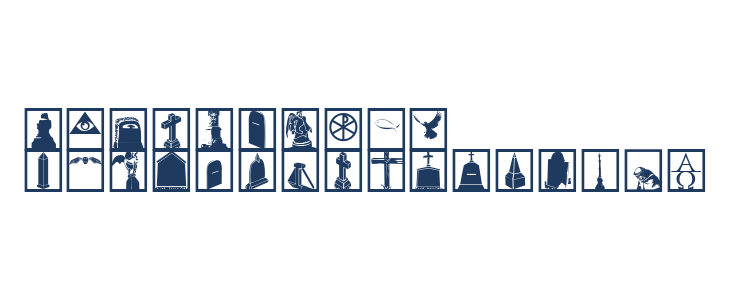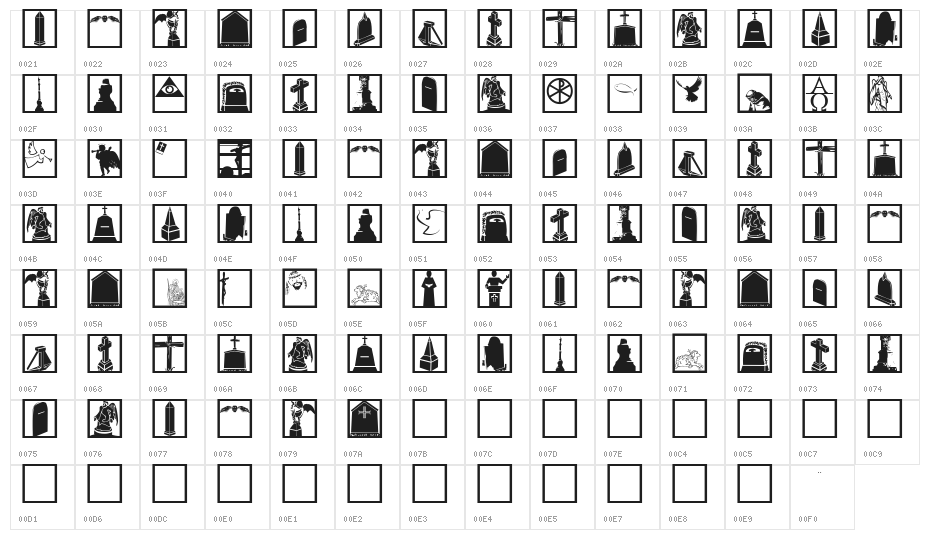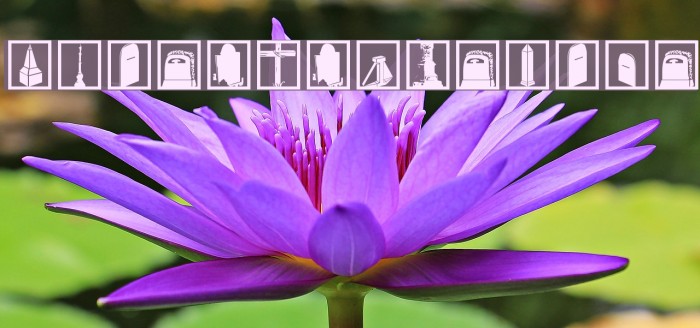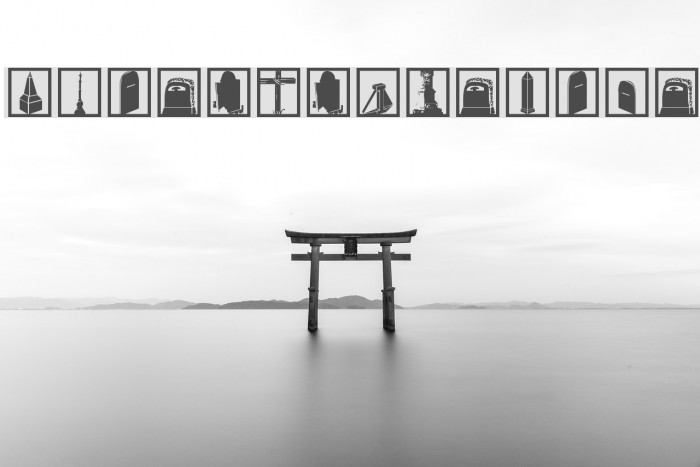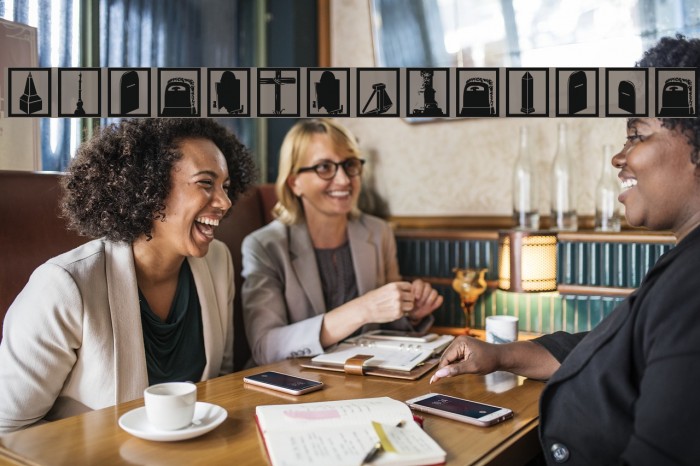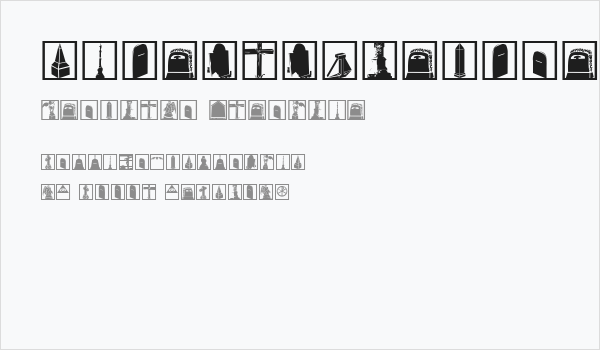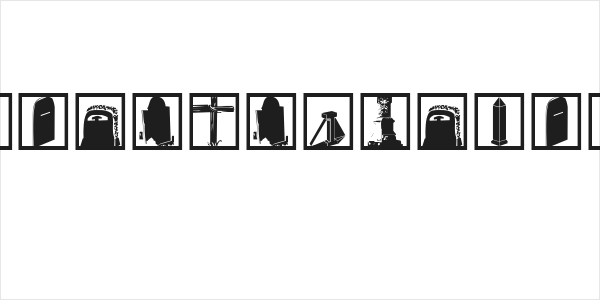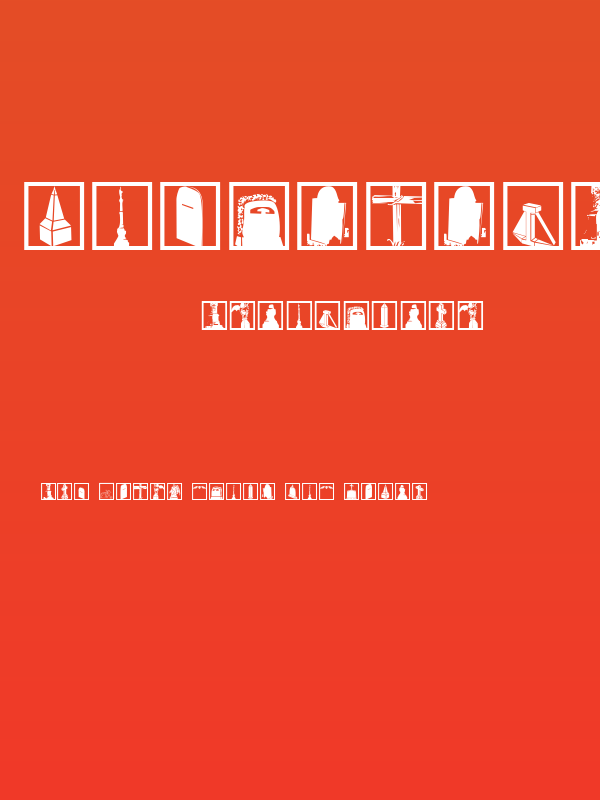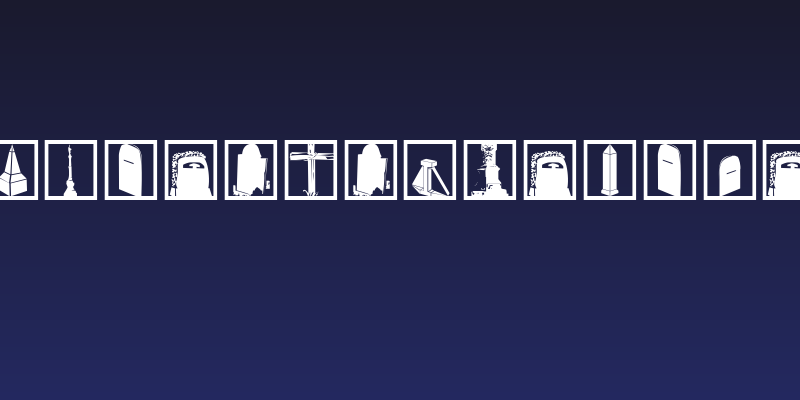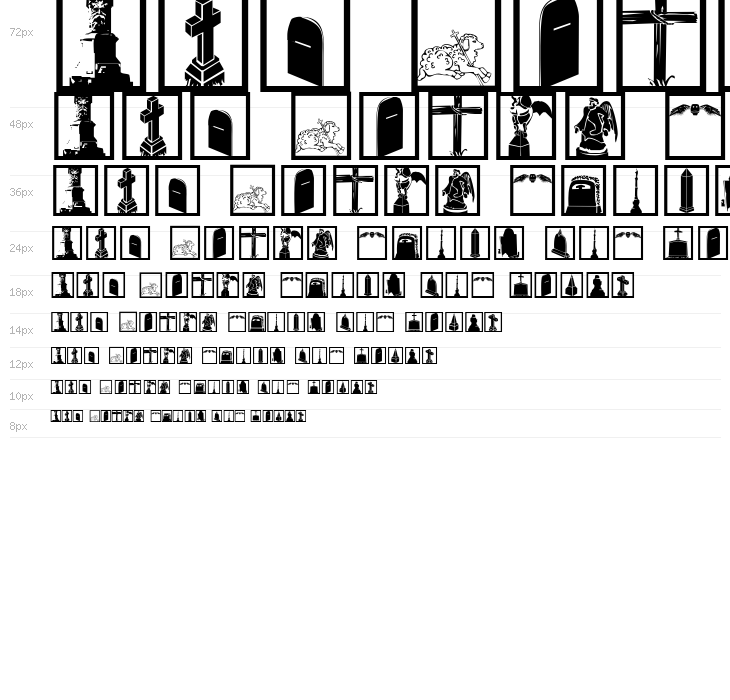
MourningTrauer Font
MourningTrauer Description
This set of icons features a collection of mourning and funeral-themed symbols. Each character is represented by a unique silhouette, including gravestones, crosses, angels, and other related imagery. The style is somber and reflective, capturing the essence of mourning with a consistent black and white color scheme. The icons are enclosed in square frames, providing a uniform appearance across the set. The design is intricate, with detailed illustrations that convey a sense of solemnity and respect.
| Use Case | Logos, Decorative elements |
| Proposed Projects | This icon set is ideal for use in funeral service brochures, memorial websites, or any project requiring respectful and solemn imagery. |